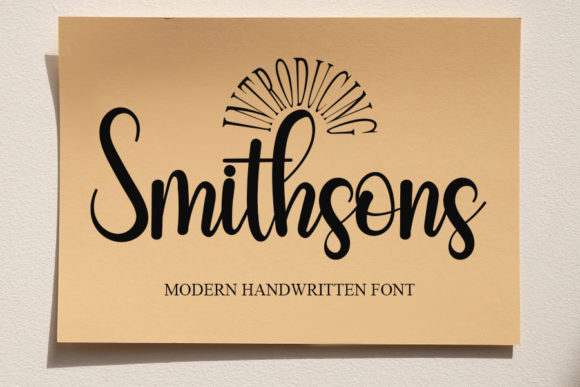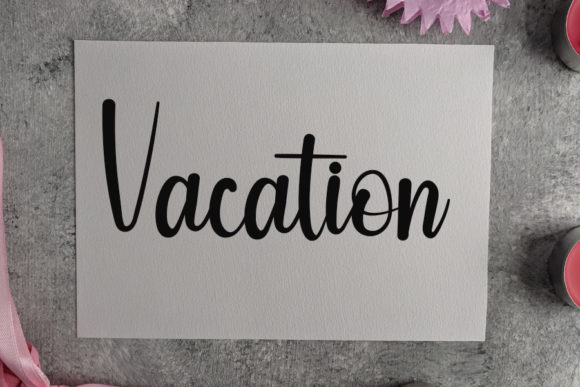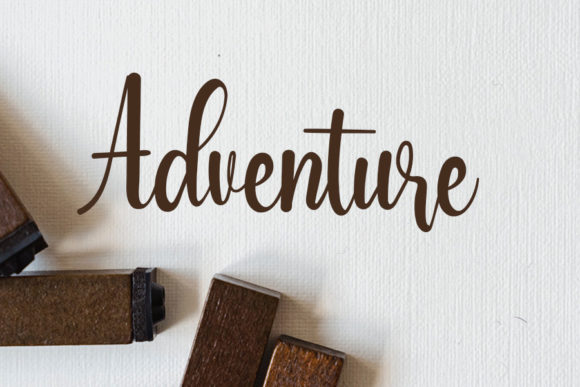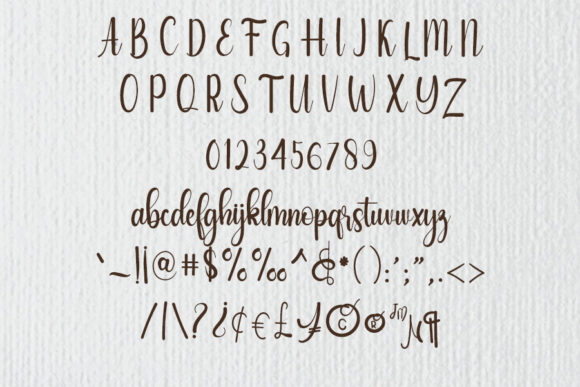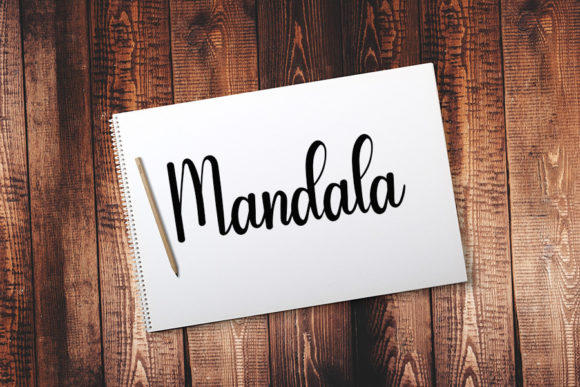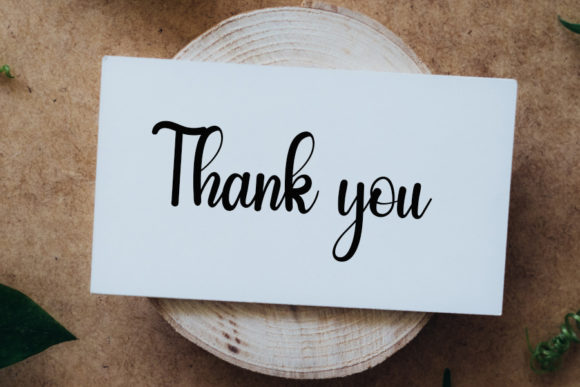
Smithsons Font
About Smithsons Font
Smithsons is a friendly handwritten font, carefully designed to become a true favorite. It maintains its classy calligraphic influences while feeling contemporary and fresh.